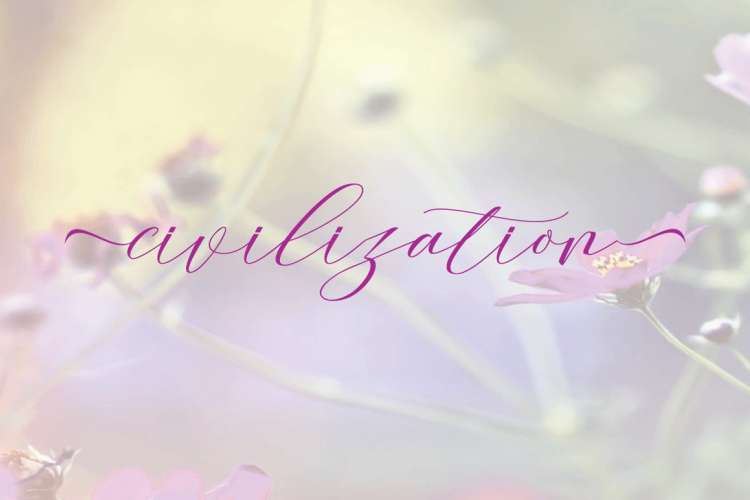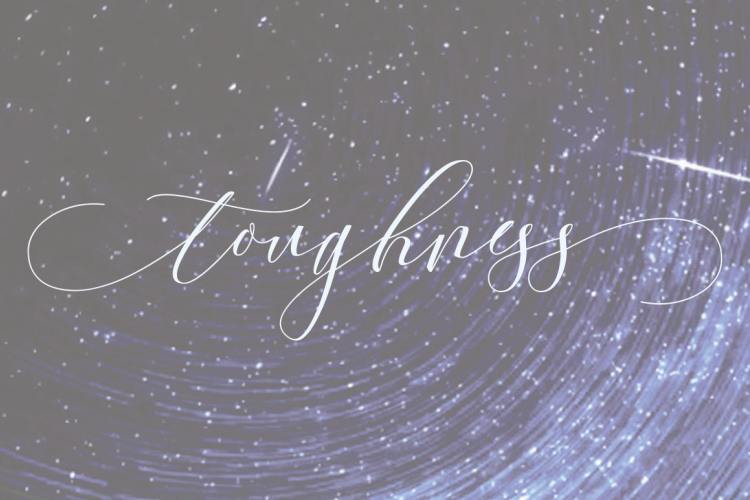
Culture Script Font
Culture Script Font – Free Demo
Hello Guys! Thank you for looking Culture Font. A modern calligraphy typeface font script. Offer a unique and elegant look that make it useful for various creative project. Culture design and shared by AlfarabyStudio. Culture Script Font are fonts of Culture stylish calligraphy that have a varied base line, fine lines, classic and elegant touches. Can be used for various purposes. Such as title, signature, logo, wedding invitation, t-shirt, letterhead, nameplate, label, news, poster, badge etc.